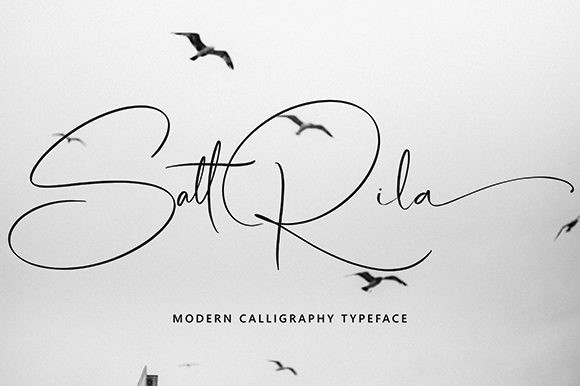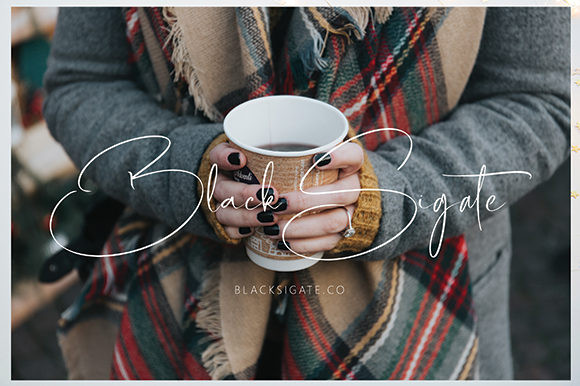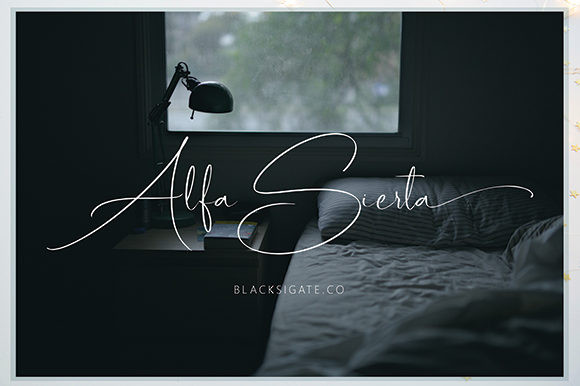
Sattrila Font
Sattrila is a lovely, thin lettered handwritten font. It maintains its classy calligraphic influences while feeling contemporary and fresh. Fall in love with it and bring your projects to the highest levels!